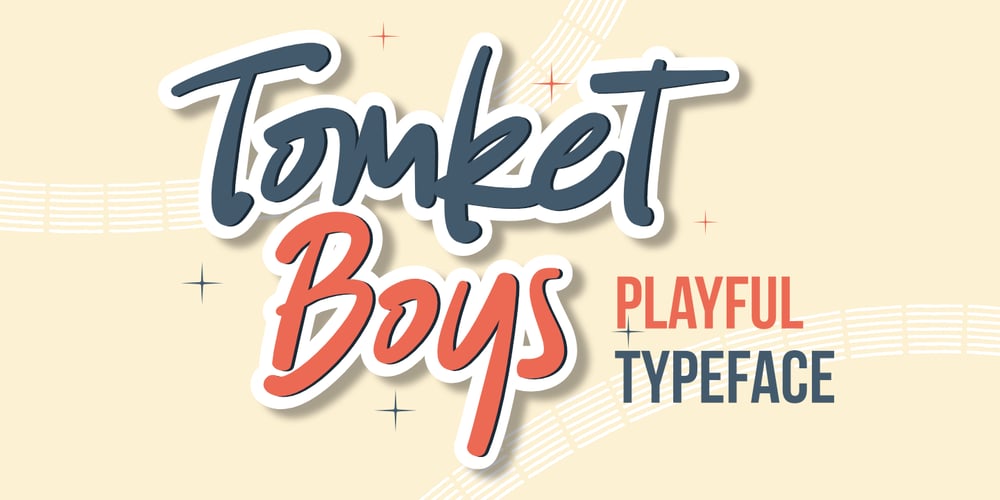
Tomket Boys
Tomket Boys font
Tomket Boys Font Family was designed by Toni Dzulham and published by Dumadi. Tomket Boys contains 1 styles and family package options. Tomket Boys is a fun and relaxing typeface ready to perfect your designs. This font lends itself to full color in a design so that the design feels alive. with support Uppercase, Lowercase, Numbers, Symbol, Ligature, Multilingual.Tomket Boys is perfect for product names, advertising designs, children’s game titles, event titles, t-shirt designs, posters, web, banners, book covers, social media, and other designs.Compatible with design studios such as Photoshop, Affinity Design, Adobe Illustrator or Silhouette. That makes it great for creative projects.Thank you, Toni Dzulham – Dumadistyle